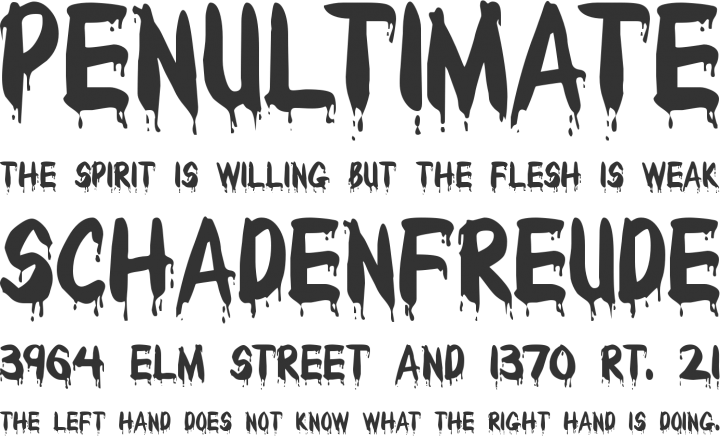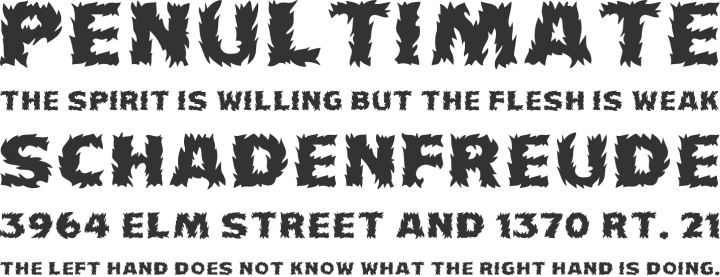
Typography 101: Novelty fonts
This Typography 101 will insight you about Novelty fonts.
They are many types of novelty fonts. From curly serifs, to bubble letters and dotes and spikes on letters, Willd West, Horror movies, etc. They are considered to be an art form of typography, because they have a very distinctive design and they can even have pictures of objects. They are best used for a few words, like in a heading, and are not suitable for body text. They ares also known as ornamental or sometimes display, and are used exclusively for decorative purposes.
Free novelty fonts
3DUMB
BLOODY
BURNSTOWN DAM
COMIC ZINE
DISTANT GALAXY
FIRECAT
FLAVORS
HEADHUNTER